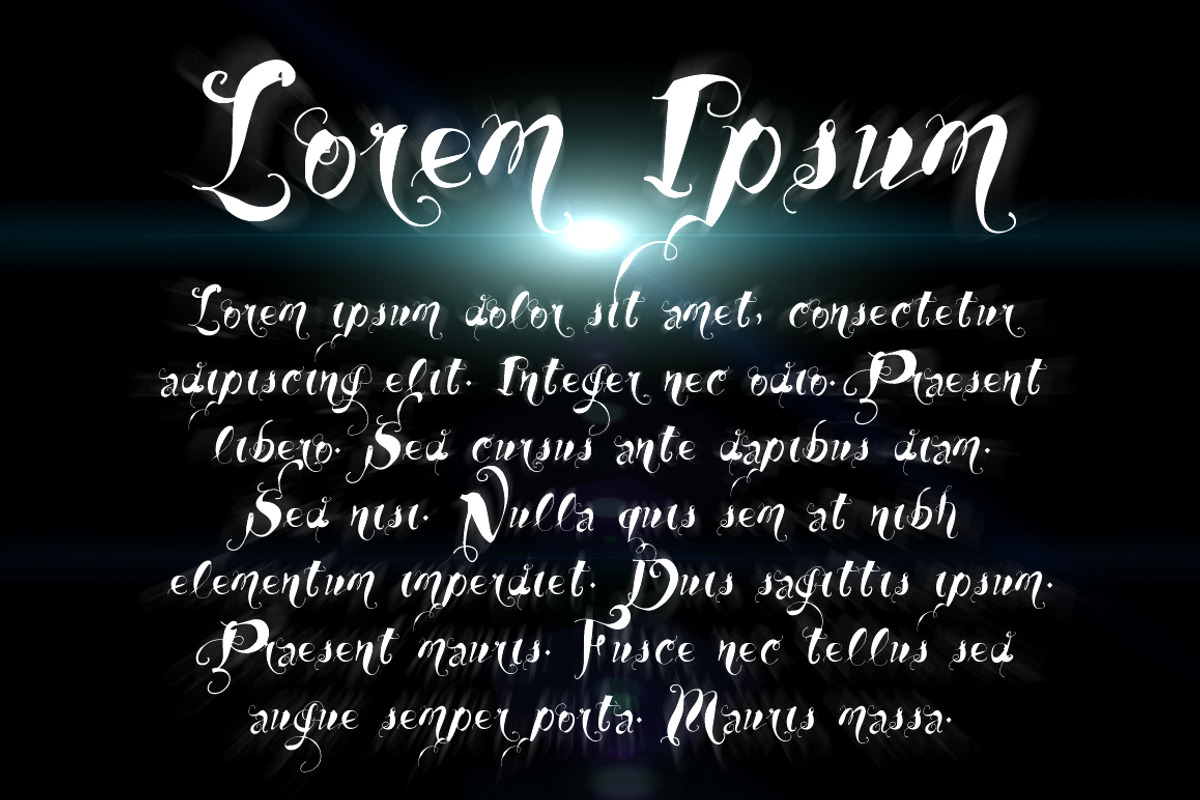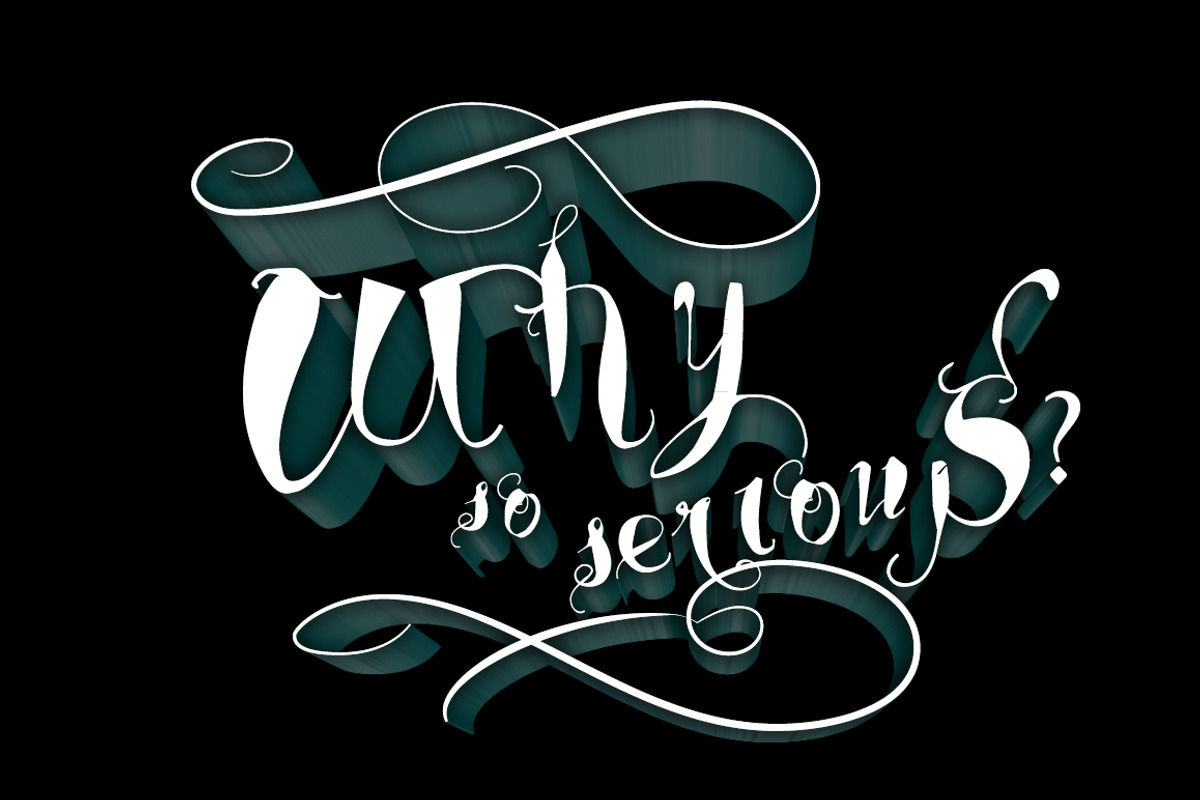
Youth Spirit Font By Vtks
Youth Spirit Font By Vtks by VTKS, a Font by vtks design is a font selected for branding, posters, packaging, typography.
Why Youth Spirit Font By Vtks is worth a look
Youth Spirit Font By Vtks by VTKS, a Font by vtks design fits naturally into Branding, posters, packaging, typography.